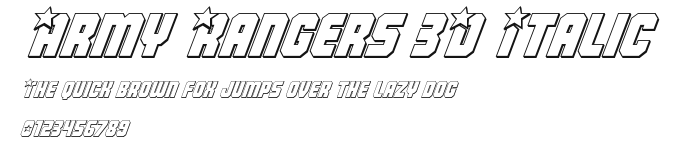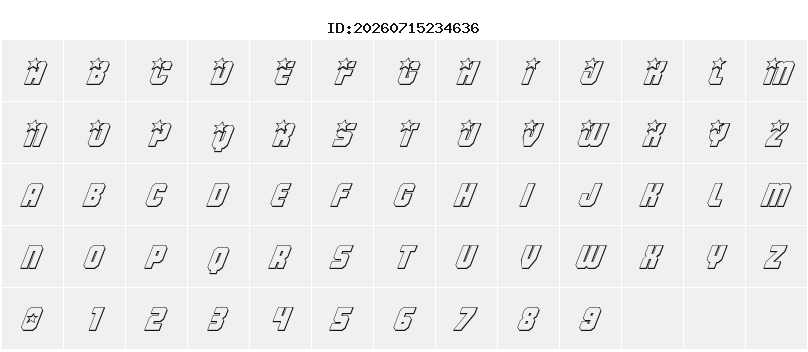
• Font Name: Army Rangers 3D Italic
• Full Font Name: Army Rangers 3D Italic
About Army Rangers 3D Italic.ttf
Army Rangers 3D Italic.ttf is a modern, elegant sans-serif font designed for ultimate readability and visual harmony. Perfect for branding, headlines, web design, and print materials.